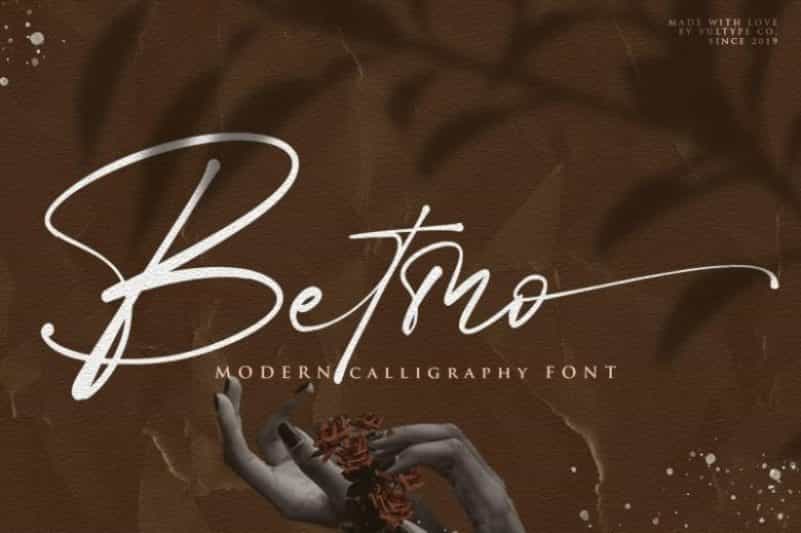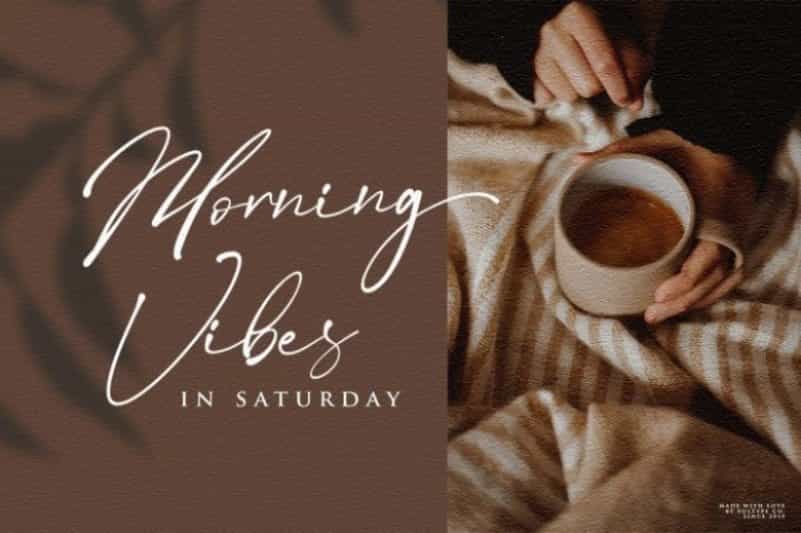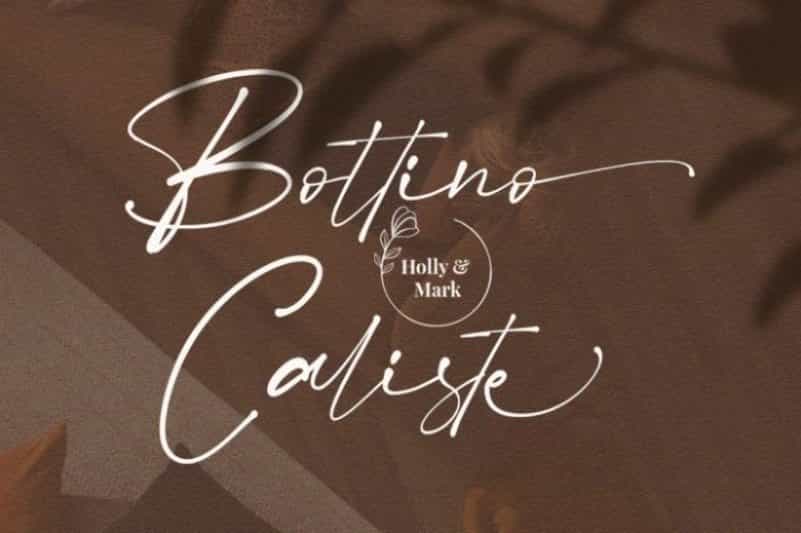
Betmo is a script font by Glories with stunning ligature and an alternate font. It is inspired by the luxury of fashion. Modern handwriting fonts that include different styles and ligatures designed to give your design a unique appearance and a glimmer to your design.